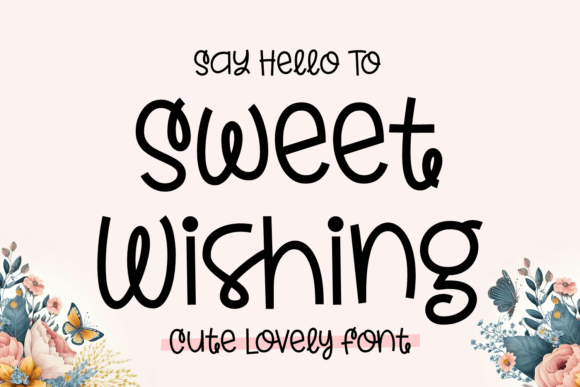
Behold the enchanting Sweet Wishing Font, a captivating script font crafted by the talented Situjuh, designed to ignite your creativity and transform your designs into captivating works of art.
Journey into a realm of boundless imagination where words dance with grace and elegance, guided by the whimsical strokes of Sweet Wishing. This font exudes a cheerful aura, inviting you to embrace the playful side of design and create enchanting projects that radiate joy and charm.
Picture a book cover adorned with the Sweet Wishing Font, its playful characters dancing across the page, beckoning readers to embark on an extraordinary adventure. The font's inherent charm adds a touch of whimsy and intrigue, capturing attention and leaving a lasting impression.
Step into the world of branding and marketing, where Sweet Wishing shines as a beacon of creativity. With its ability to infuse personality and charm into logos, posters, and advertisements, this font becomes a powerful tool for businesses seeking to connect with their audience on a deeper level.
Unleash your artistic flair and craft stunning wedding invitations, greeting cards, and social media posts that exude warmth and heartfelt emotions. The Sweet Wishing Font transforms ordinary words into expressions of love, friendship, and celebration, adding a touch of magic to every occasion.